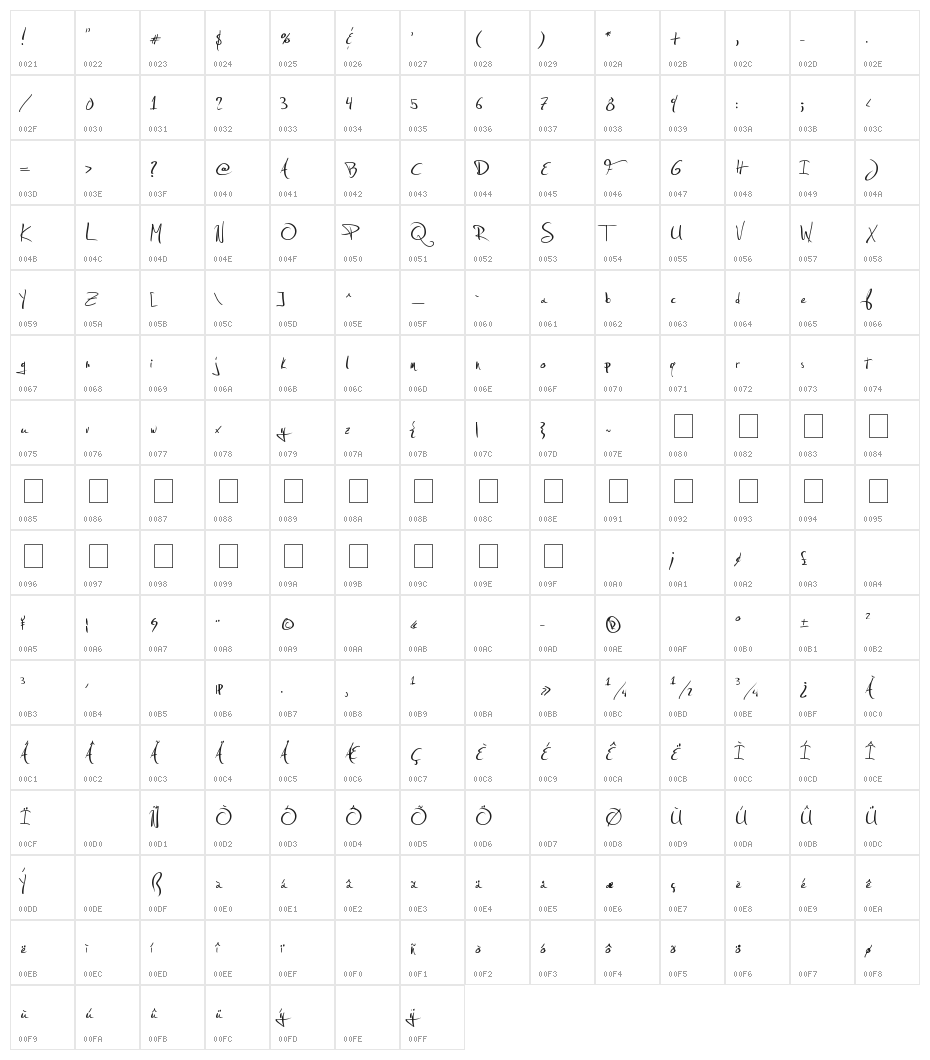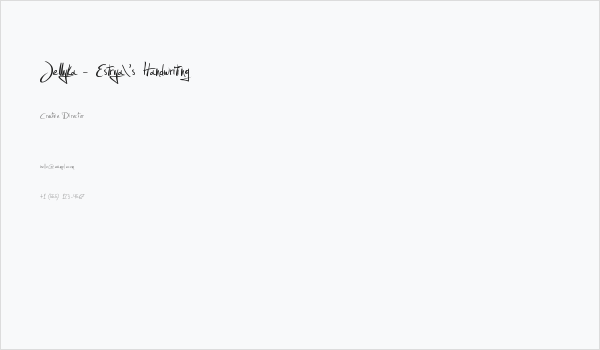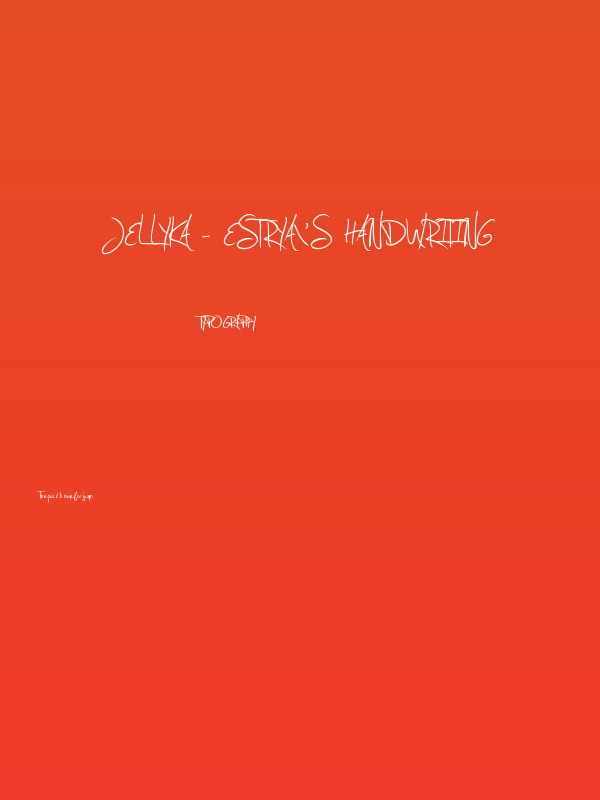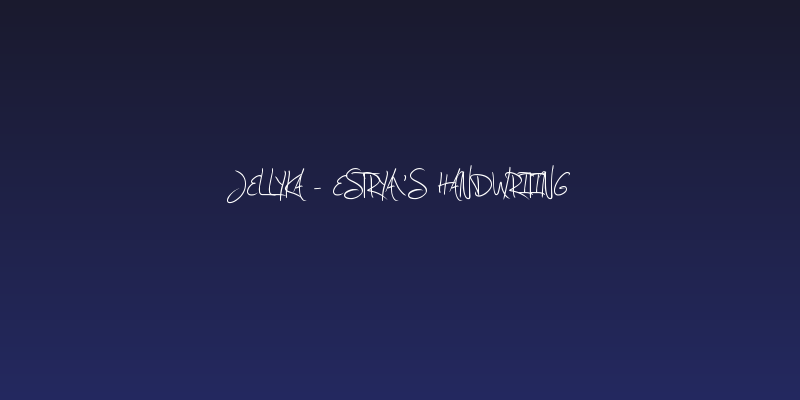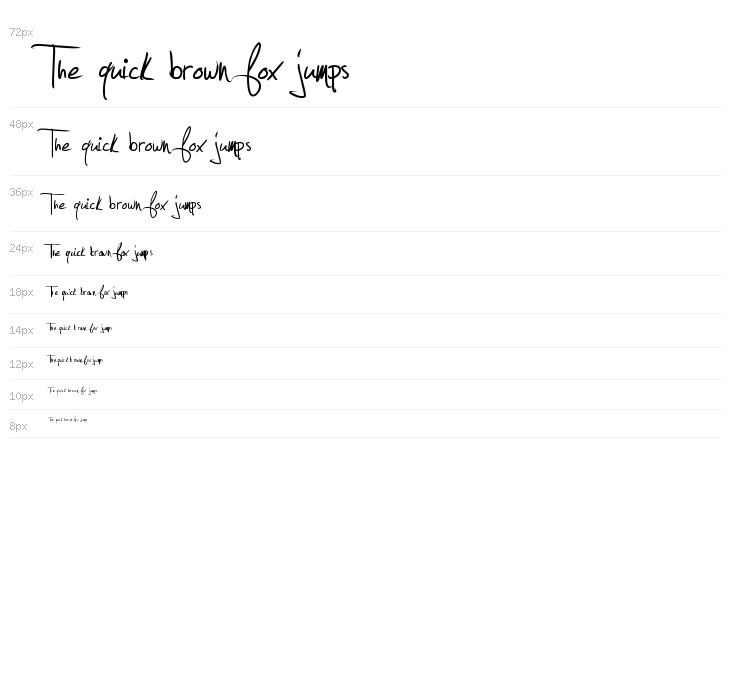
Jellyka - Estrya's Handwriting Font
Jellyka - Estrya's Handwriting Description
This font exudes a whimsical and artistic flair, characterized by its flowing, cursive style that mimics elegant handwriting. The letters are intricately designed with varying stroke widths, giving it a dynamic and lively appearance. The uppercase letters are particularly ornate, with elaborate loops and swirls that add a touch of sophistication. The lowercase letters maintain a consistent fluidity, complementing the uppercase with their graceful curves. Numbers and special characters are crafted with the same attention to detail, ensuring a cohesive look across all elements. This font is perfect for projects that require a personal, handcrafted touch, such as invitations, greeting cards, or artistic branding.